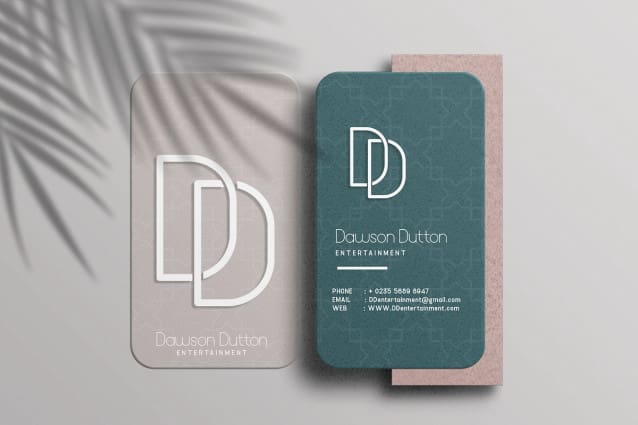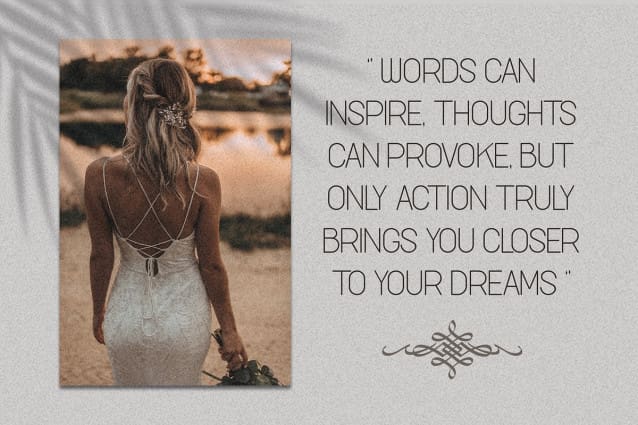
Monnoline Font
Monnoline Font, a sleek and contemporary monoline typeface designed to bring clean lines and modern aesthetics to your creative projects. Perfectly suited for logos, headlines, branding, and minimalist designs, “Monnoline” offers a harmonious blend of simplicity and sophistication.
“Monnoline Font” features uniform line thickness throughout each character, creating a cohesive and streamlined look. Its crisp, geometric shapes and balanced proportions ensure that your text is both visually appealing and highly legible. This versatile typeface includes a complete set of uppercase and lowercase letters, numerals, punctuation, and multilingual support, giving you the flexibility to use it across various design applications.
Whether you’re crafting elegant business cards, stylish posters, chic packaging, or modern websites, “Monnoline” enhances your work with its timeless appeal and contemporary flair. Its minimalist design makes it an ideal choice for projects that require a clean and professional appearance.
“Monnoline Font” is the perfect addition to your font library, ready to elevate your design projects with its sleek and modern charm.